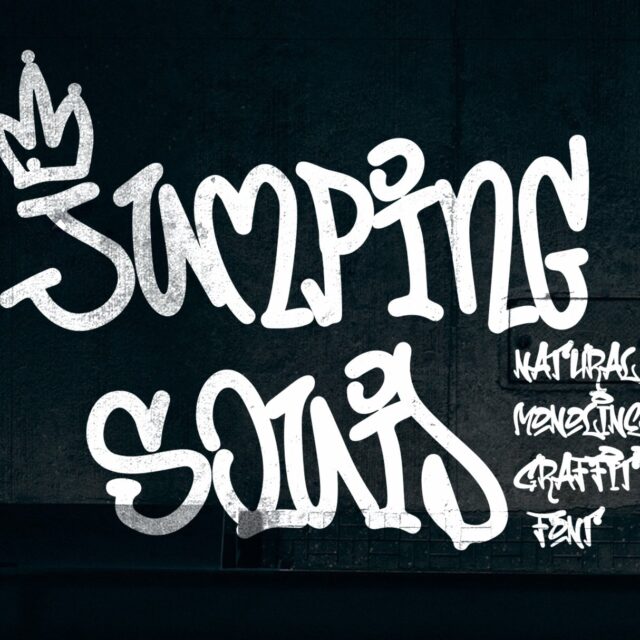
Jumping Squid
“Jumping Squid” is a natural monoline font with stylistic alternates that bring your designs to life. With its organic and flowing letterforms, this font captures the essence of authentic penmanship. The stylistic alternates add versatility and creativity, allowing you to create unique and dynamic typography. Perfect for various street-themed projects, “Jumping Squid” adds an urban and artistic touch, making your designs stand out with a lively and captivating look.